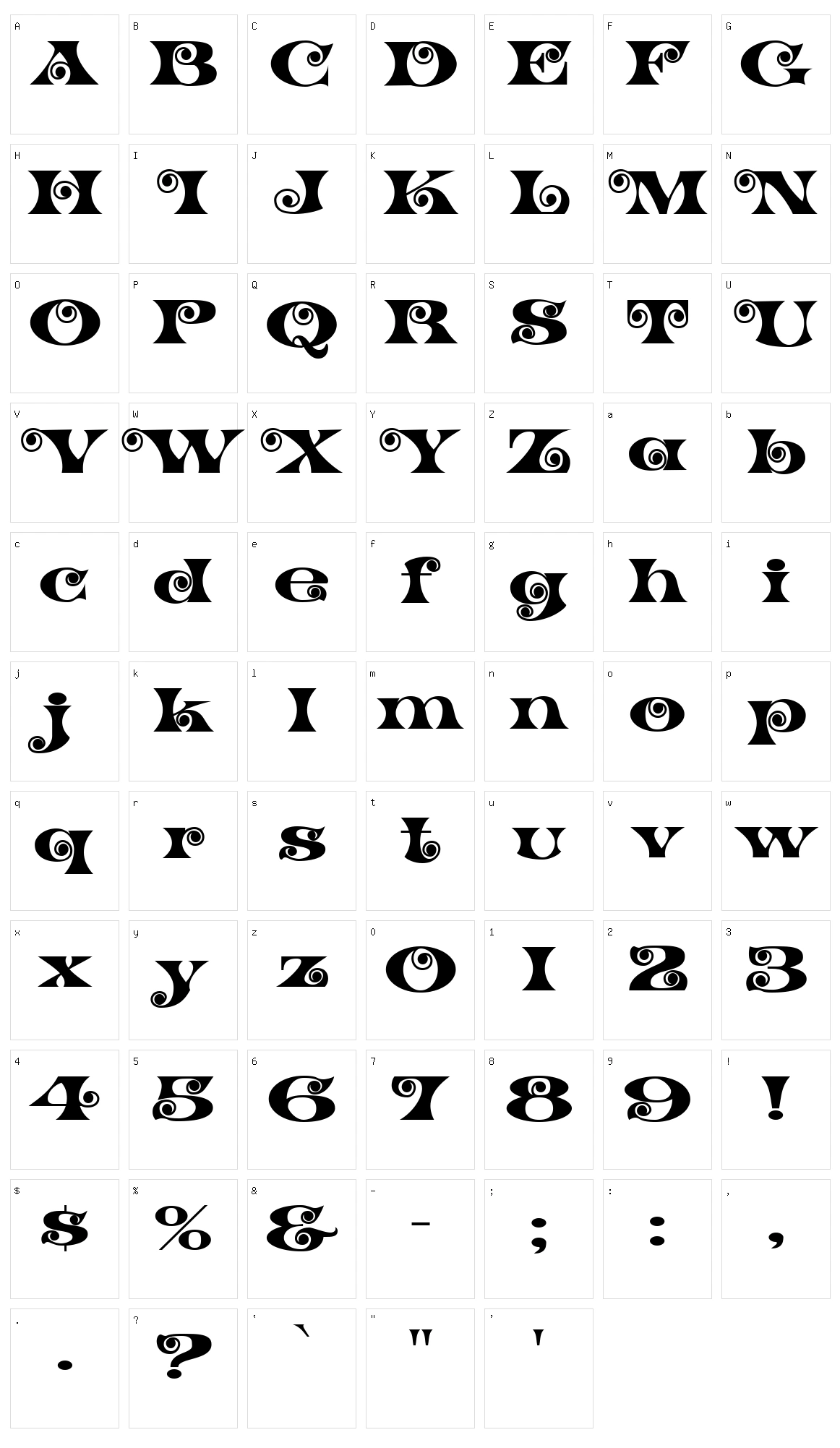
The free font K22 Spiral Swash is carefully designed by Toto, showcasing a thoughtful balance of creativity and usability and falls under the Script font style. When you download the ZIP file, it contains only 360.19 KB of font files, making it lightweight and quick to download. Please review the license details below to understand permitted usage and distribution rights. If license information is not available, we recommend using this font for personal projects only or contacting the author directly for commercial usage permissions.